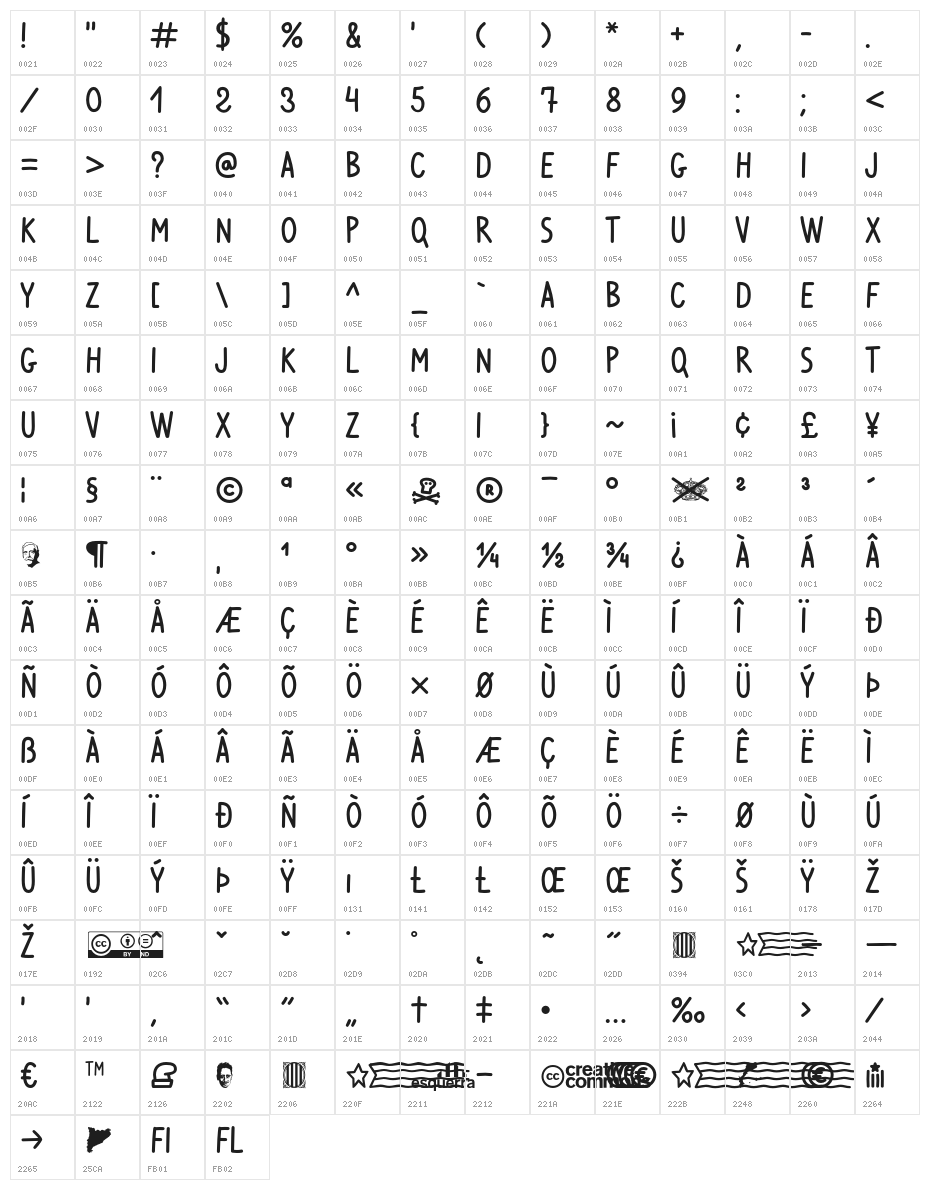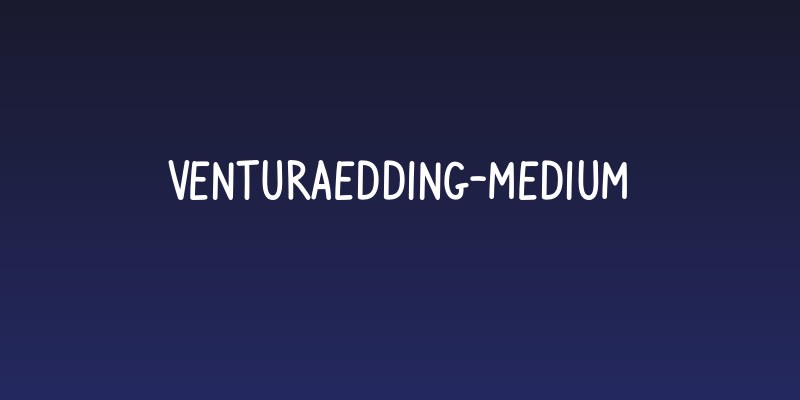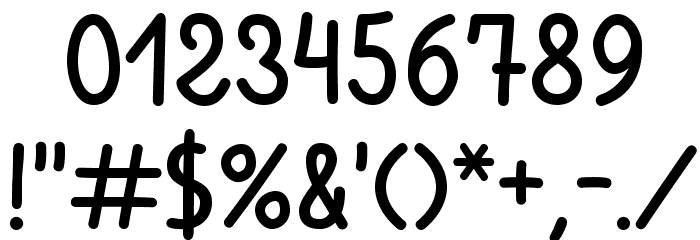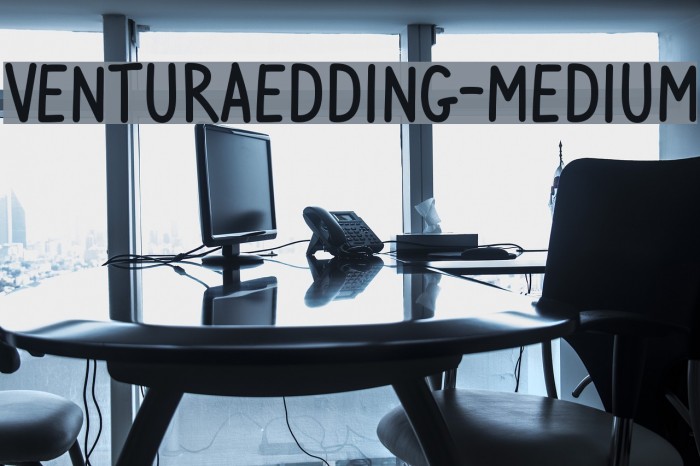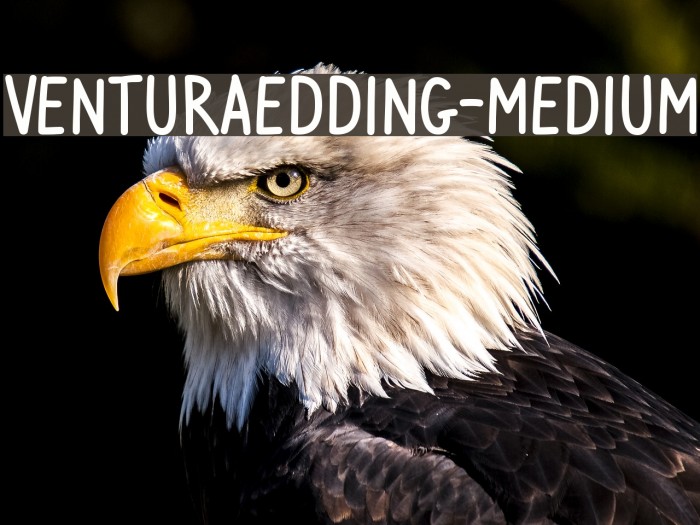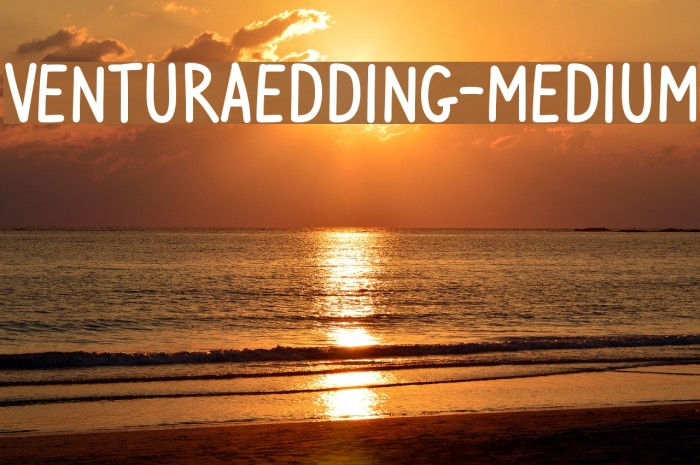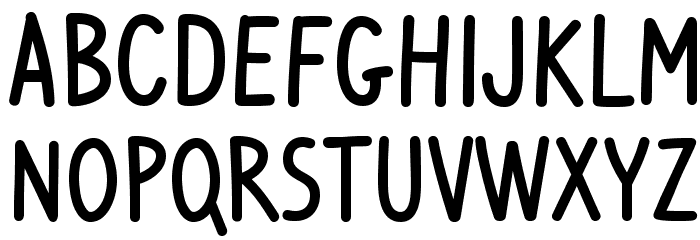
VenturaEdding-Medium Font
VenturaEdding-Medium Description
This font features a playful and casual handwritten style, characterized by its rounded edges and smooth curves. The letters are evenly spaced, providing a clean and approachable appearance. The uppercase and lowercase characters maintain a consistent height, contributing to its uniformity. Numbers and special characters are designed with the same playful aesthetic, making them blend seamlessly with the alphabet. This font exudes a friendly and informal vibe, ideal for projects that require a personal touch.
| Overall Style | Casual |
| Use Case | Headlines, Logos, Informal Text |
| Proposed Projects | Ideal for children's books, greeting cards, casual branding, and social media graphics. |